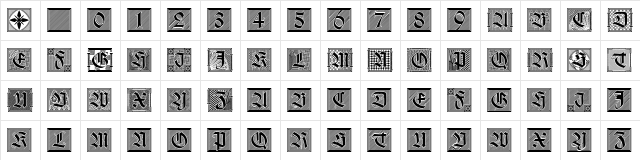
Holzschnitt-Initialen Regular
Design Context for Holzschnitt-Initialen Typeface
Holzschnitt-Initialen is a composed and adaptable typeface that performs quietly and consistently across a wide range of design contexts.